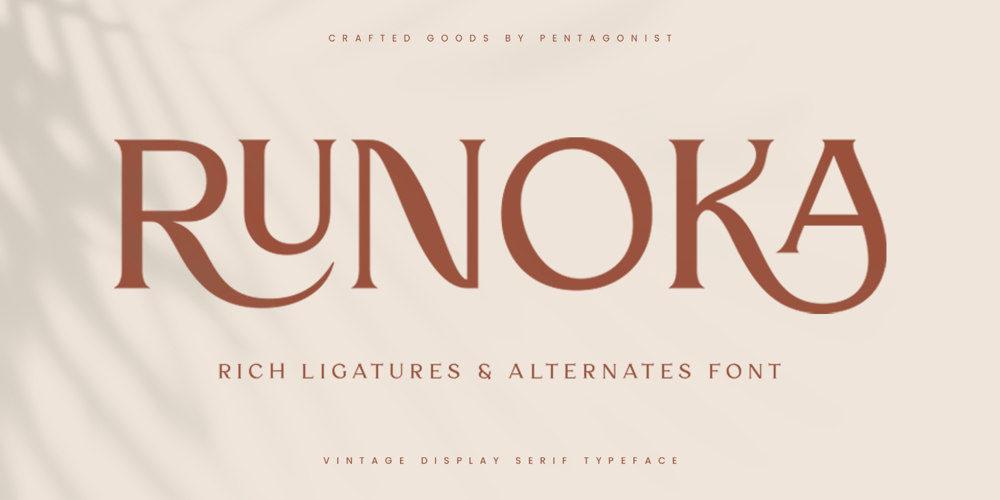
Runoka Font Family was designed by Burhan Adiatma and published by pentagonistudio. Runoka contains 2 styles and family package options. Runoka Is Vintage Display Serif Fonts Inspired by Rich ligatures & alternatesSOFTWARE REQUIREMENTS :Fonts and alternate : No special software required they may be used in any basic program /website apps that allows standard fonts That’s it folks! You can go ahead and get cracking :)Follow My Shop For Upcoming Updates Including Additional Glyphs And Language Support. And Please Message Me If You Want Your Language Included or If There Are Any Features or Glyph Requests, Feel Free to Send me A Message. Have a Good Day !